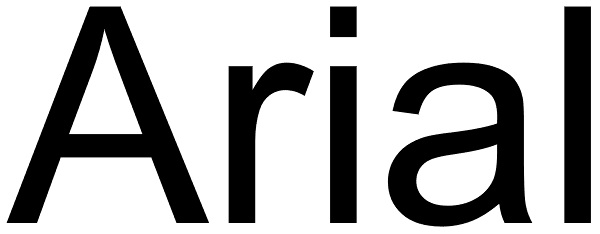
Arial
A contemporary sans serif design, Arial contains more humanist characteristics than many of its predecessors and as such is more in tune with the mood of the last decades of the twentieth century. The overall treatment of curves is softer and fuller...